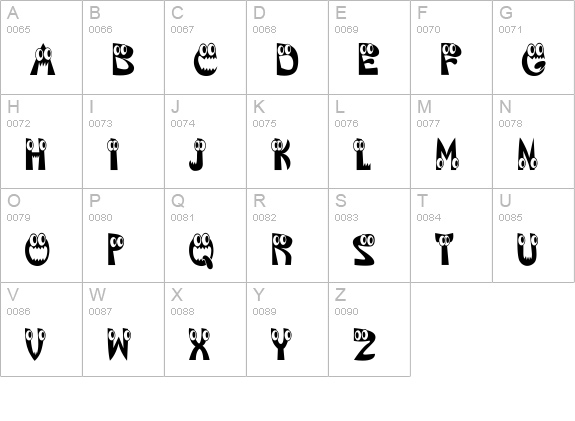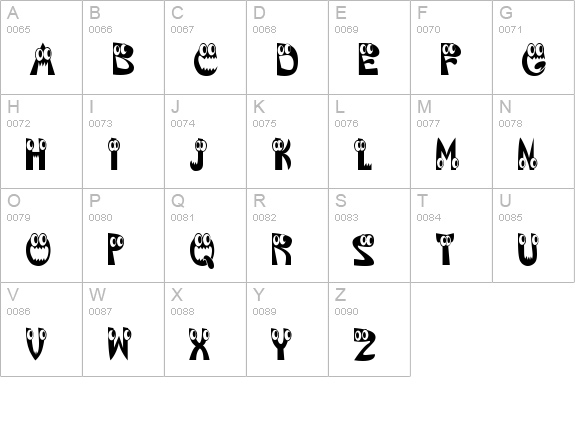
Introducing KAHorribleSquish font, a grotesque display typeface that adds a touch of horror and intrigue to any design. This font is not for the faint-hearted, as it embraces the dark side with its distorted and squished letterforms. Each character is intricately designed to create a sense of unease, making it perfect for horror movie posters, Halloween-themed designs, and anything that requires a spine-chilling aesthetic. What sets KAHorribleSquish font apart is its unique ability to captivate and disturb simultaneously. The irregular shapes and uneven proportions of the letters give it a handcrafted feel, as if each character has been molded and twisted by a malevolent force. The jagged edges and unsettling curves add an element of chaos, making this font truly one-of-a-kind. But fear not, for this font is not only terrifyingly captivating, but it is also freely available to download at FontsMarket.com. Yes, you read that right! You can get your hands on this eerie masterpiece without spending a single penny. FontsMarket.com, the go-to destination for quality typefaces, offers this font as a gift to all design enthusiasts who dare to venture into the realm of the macabre. Whether you're a graphic designer looking to add some frightful flair to your projects or a Halloween enthusiast searching for the perfect font to send shivers down the spines of your audience, KAHorribleSquish font is the answer. Its versatility allows it to be used in various contexts, from branding to editorial design, ensuring that your message is delivered with a bone-chilling impact. Don't miss out on this opportunity to possess a font that embodies the essence of horror and the thrill of the unknown. Download KAHorribleSquish font today, for free, at FontsMarket.com, and let your imagination run wild as you explore the dark and twisted possibilities it offers.